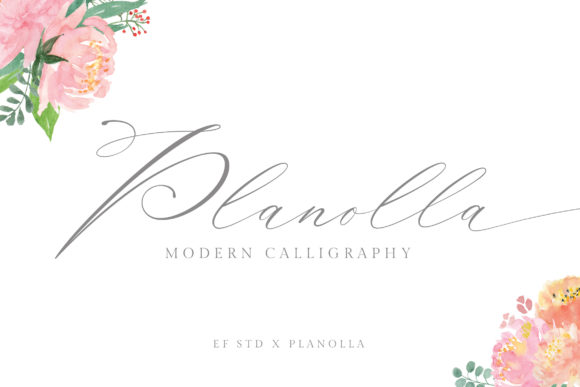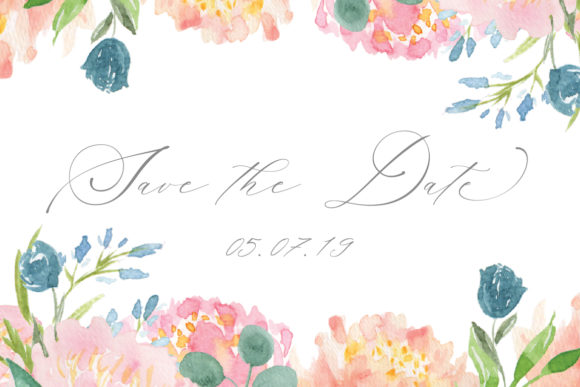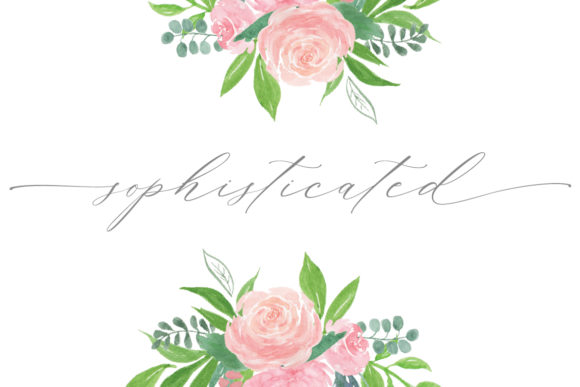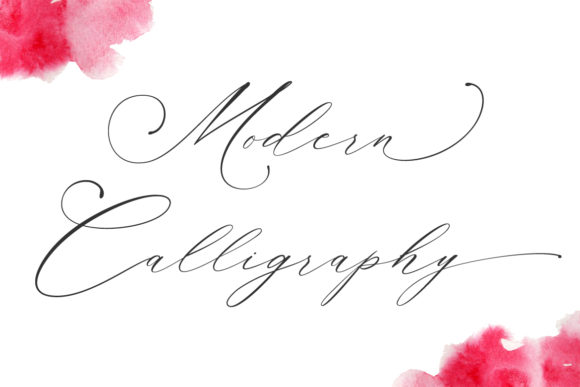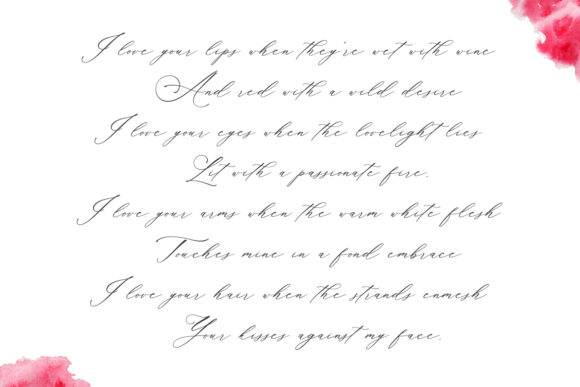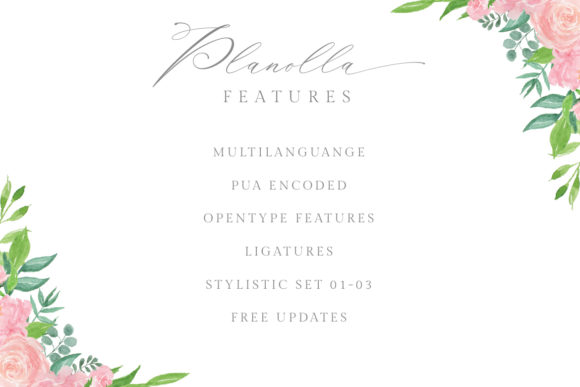
Planolla Font
About Planolla Font
Planolla is an incredibly artistic and delicate script. Its elegance transcends time, making it the perfect crafting font!